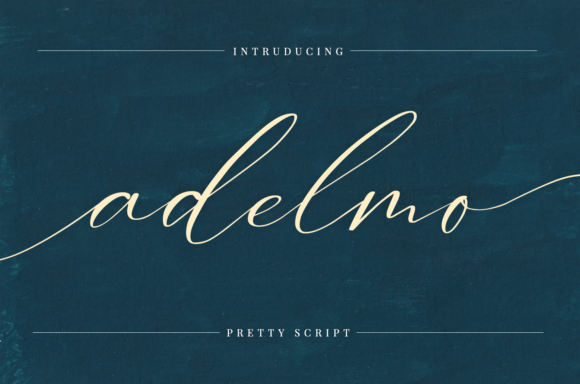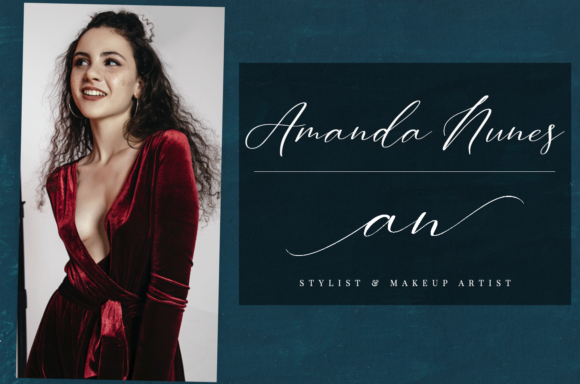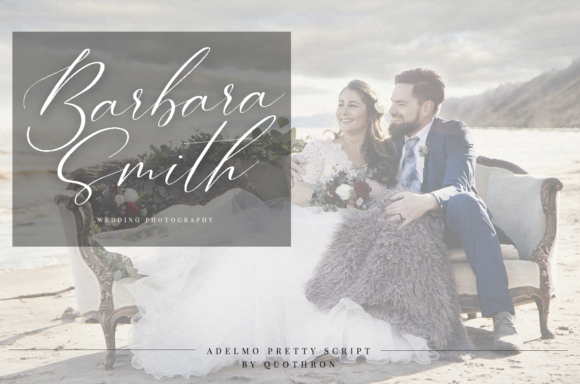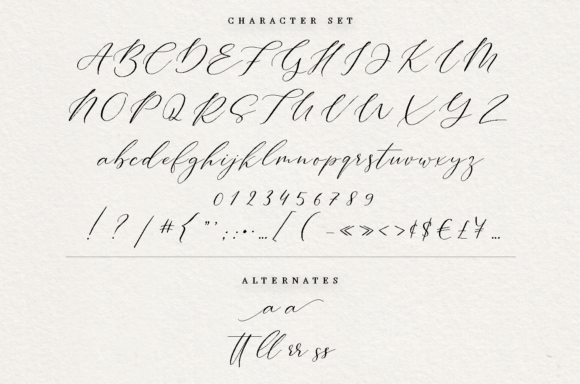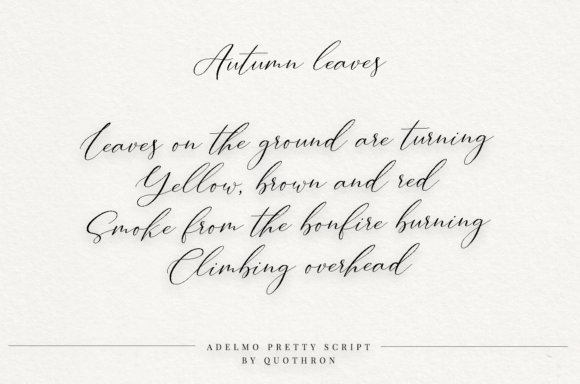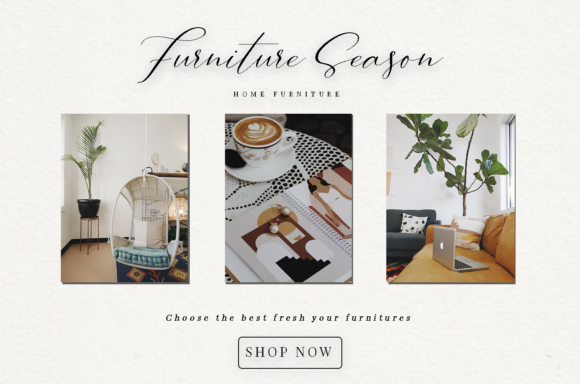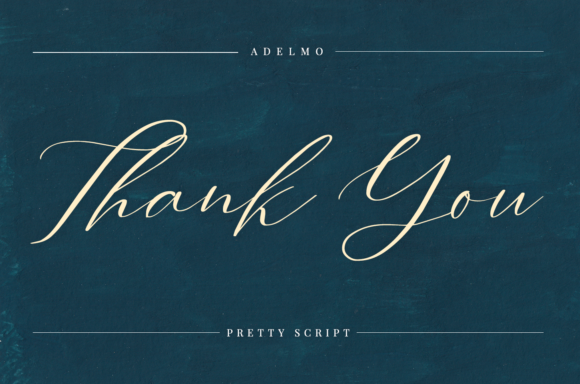
Adelmo Font
About Adelmo Font
Adelmo is a subtle and pretty handwritten font with an incredible level of detail. Pay homage to classic calligraphy with this stunning script!